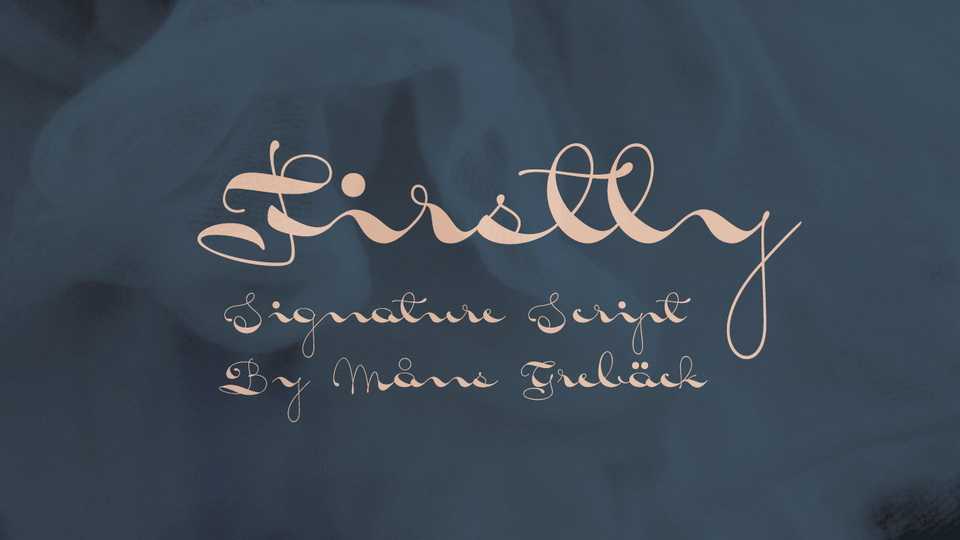
Download Firstly font, a script typeface with a unique character. Its wavy shapes and soft flow gives any project or logotype a well-balanced personality.
Designer: Måns Grebäck